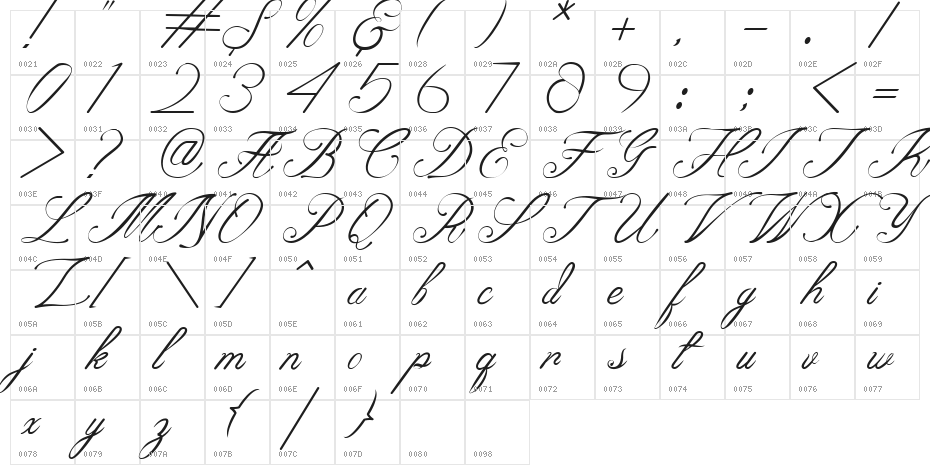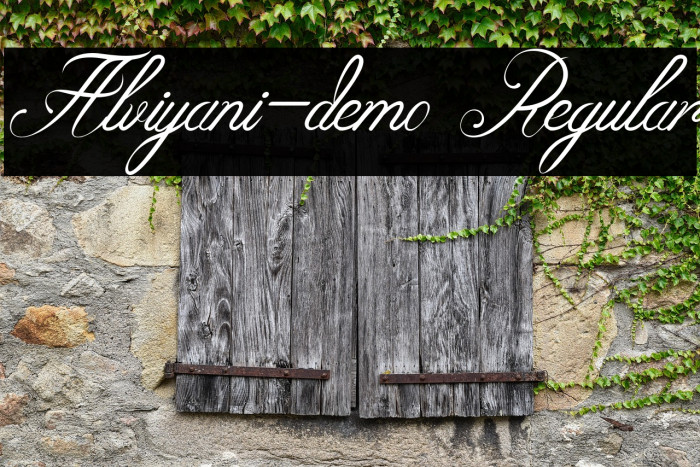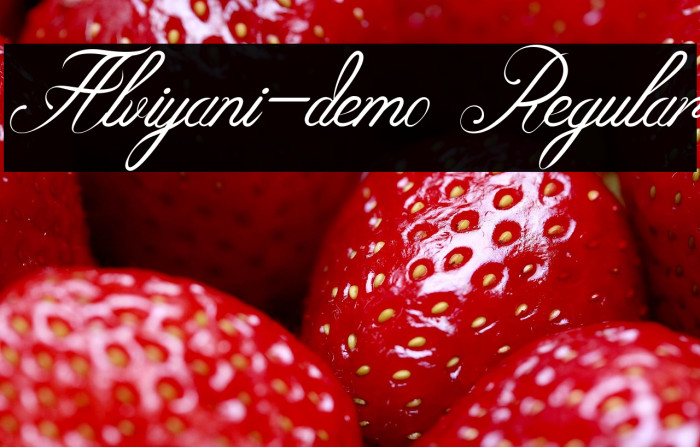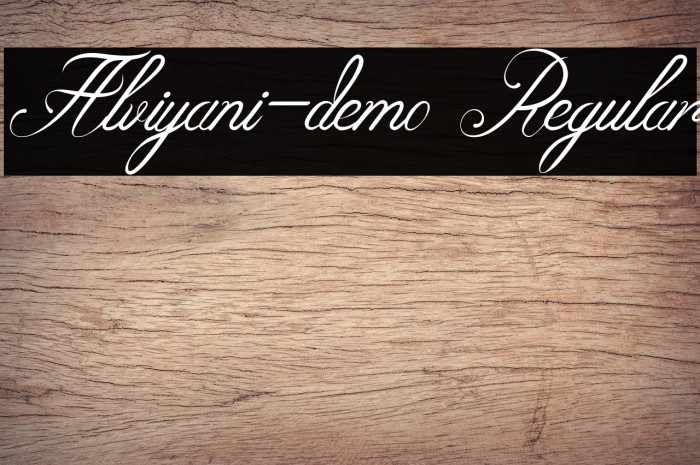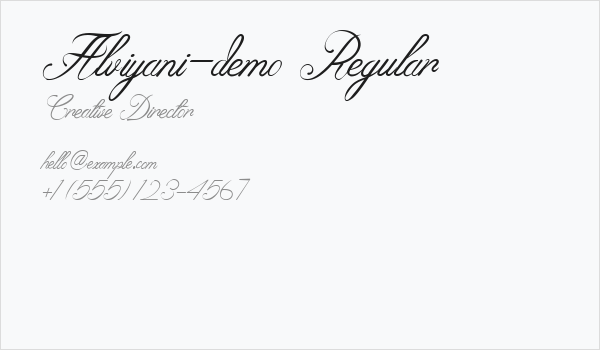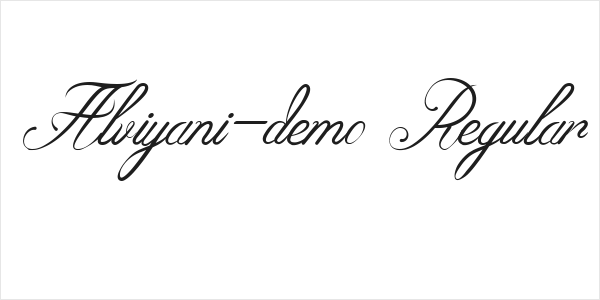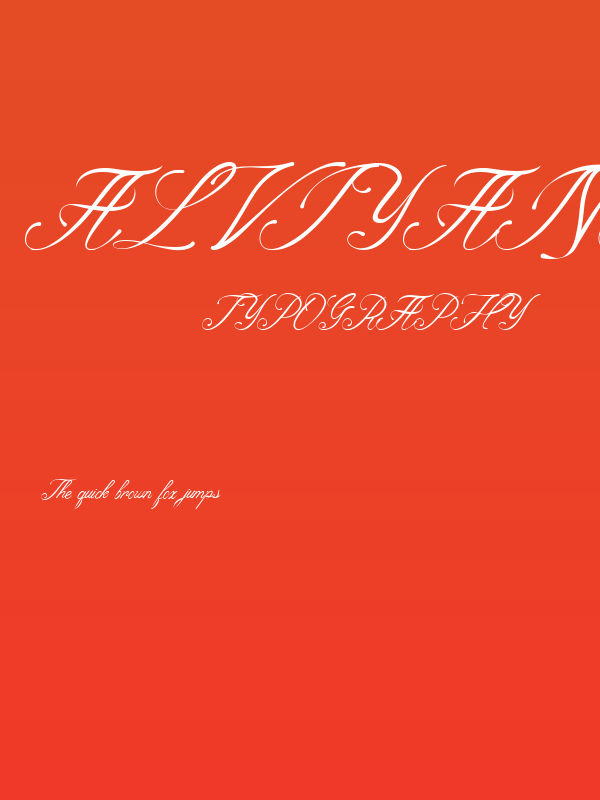
Alviyani-demo Regular Font
Alviyani-demo Regular Description
This elegant script font features a flowing, cursive style with intricate loops and swashes. The uppercase letters are adorned with decorative flourishes, giving them a sophisticated and ornate appearance. The lowercase letters maintain a smooth and connected flow, enhancing the script's overall elegance. The numerals and special characters are designed to complement the letterforms, maintaining the same graceful style. This font is perfect for projects that require a touch of elegance and sophistication, such as wedding invitations, luxury branding, and high-end product packaging.
Overall StyleElegant, Decorative
Use CaseLogos, Invitations, Branding
Proposed ProjectsIdeal for wedding invitations, luxury branding, and high-end product packaging.